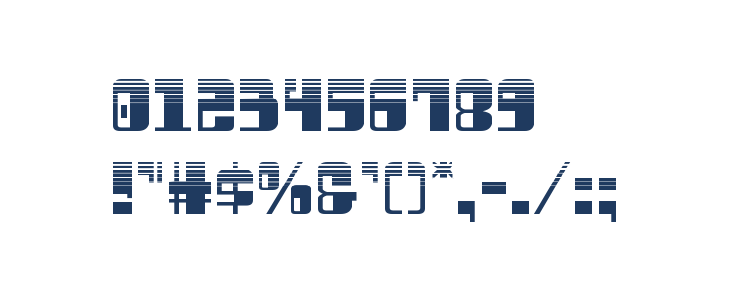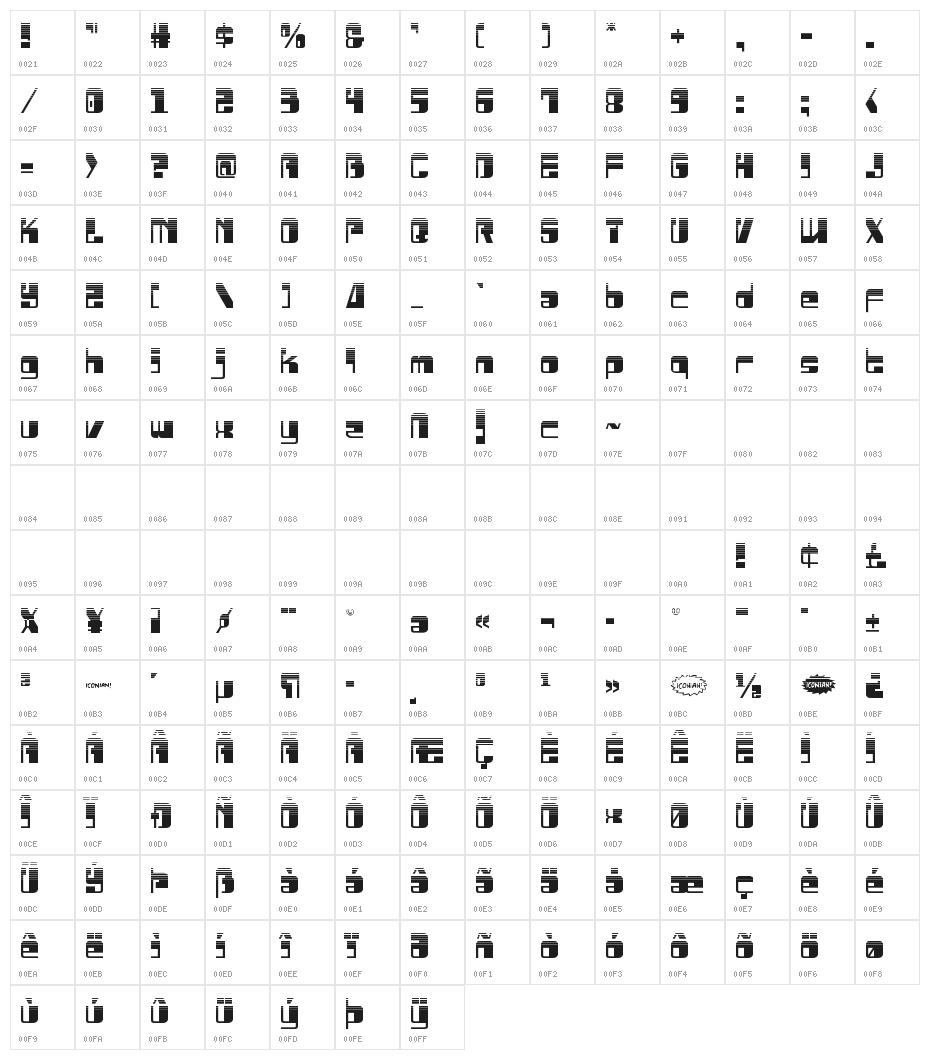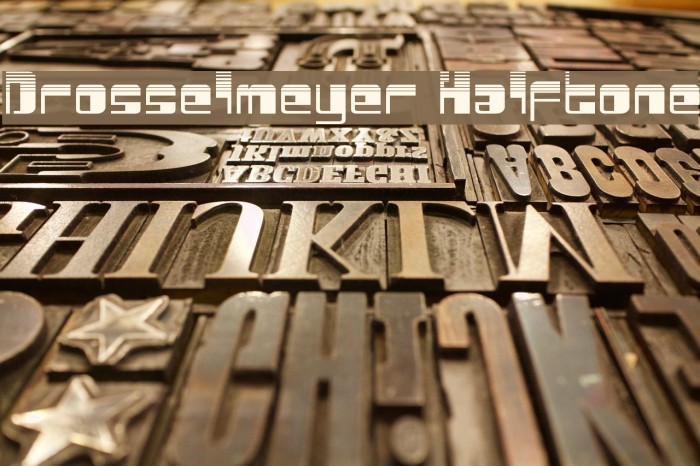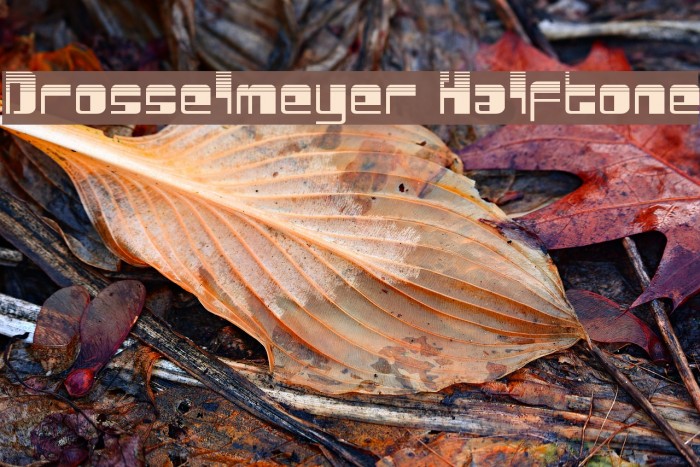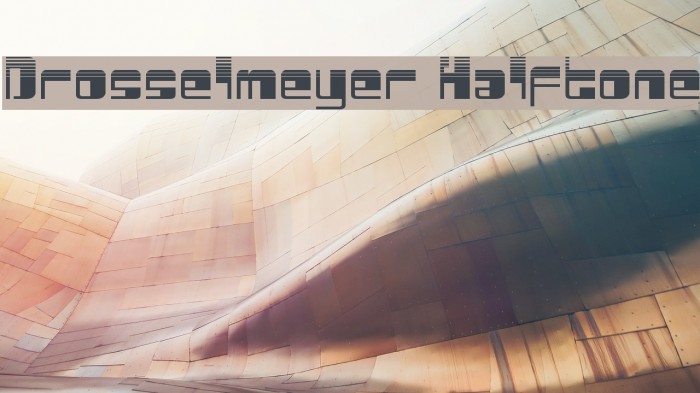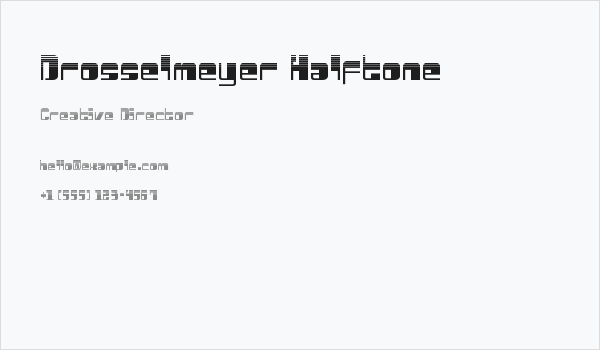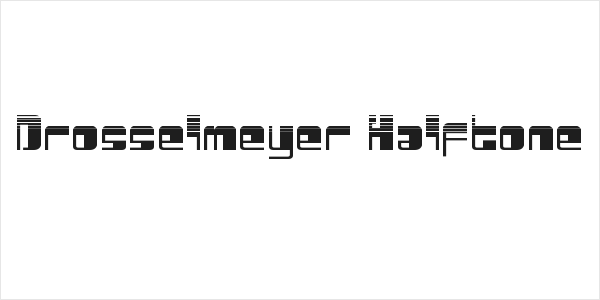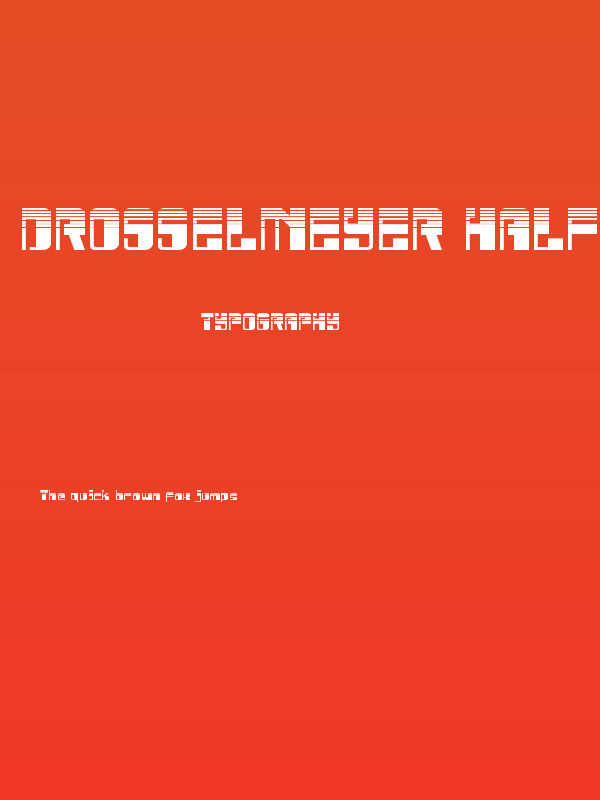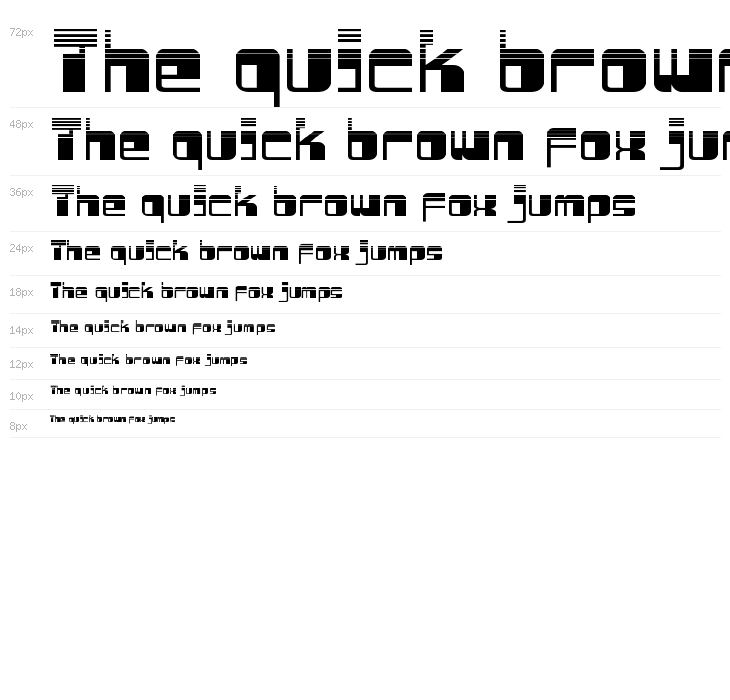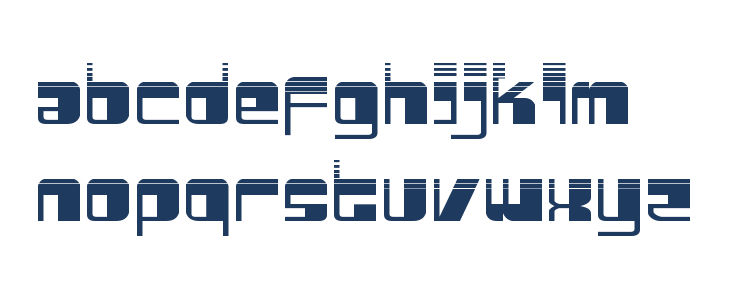
Drosselmeyer Halftone Font
Drosselmeyer Halftone Description
This font features a unique halftone effect, combining bold geometric shapes with horizontal lines that create a sense of movement and texture. The uppercase and lowercase letters maintain a consistent style, with sharp angles and a futuristic aesthetic. Numbers and special characters are equally bold, making them stand out with their distinctive design. The overall look is modern and eye-catching, suitable for projects that require a strong visual impact. The halftone pattern adds depth and complexity, making it ideal for creative and artistic applications.
| Proposed Projects | Ideal for posters, album covers, digital art, and branding projects that require a modern and dynamic look. |